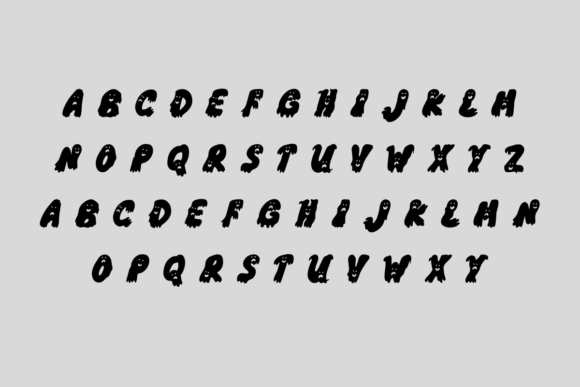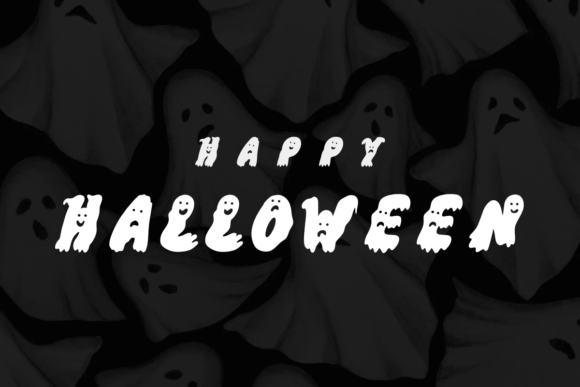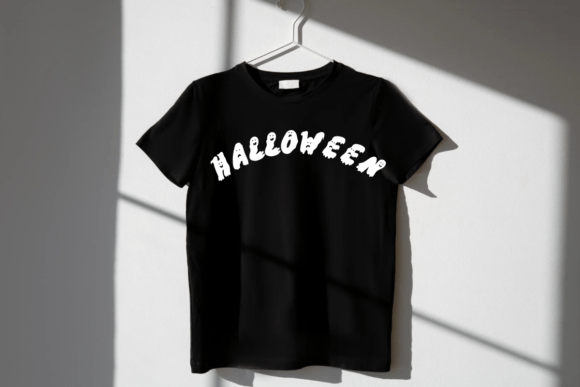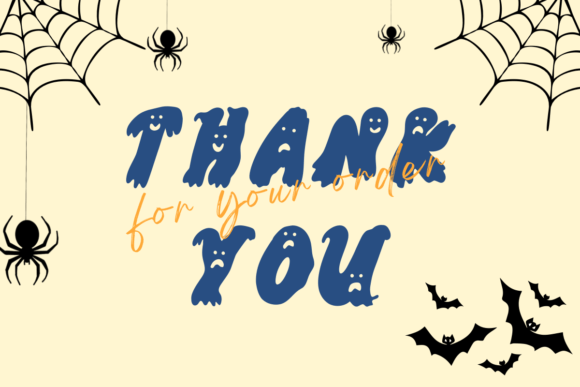
Introducing the Ghost Halloween Font: Add a Spooky Touch to Your Designs
Are you looking for a unique and playful way to add a spooky touch to your Halloween decorations or party invitations? Look no further than the “Ghost Halloween” font! This special font features letters that resemble adorable and eerie ghosts, perfect for getting into the Halloween spirit.
What is the Ghost Halloween Font?
The Ghost Halloween font is a one-of-a-kind typeface where each letter is designed to look like a spooky ghost. The font is perfect for designers, crafters, and anyone looking to add a playful and eerie touch to their Halloween-themed projects. Whether you’re creating party invitations, decorations, or social media graphics, this font is sure to make your designs stand out.
Features of the Ghost Halloween Font
- Unique Ghostly Design: Each letter in the Ghost Halloween font is carefully designed to resemble a spooky ghost, adding a playful and eerie touch to your designs.
- Playful and Eerie: The font strikes the perfect balance between playful and eerie, making it suitable for a wide range of Halloween-themed projects.
- High-Quality Design: The font is designed with high-quality graphics, ensuring that it looks great even at large sizes.
Uses for the Ghost Halloween Font
The Ghost Halloween font is versatile and can be used for a wide range of projects, including:
- Halloween Party Invitations: Create spooky and fun party invitations that will set the tone for your Halloween celebration.
- Halloween Decorations: Use the font to create signs, banners, and other decorations that will add a playful and eerie touch to your Halloween display.
- Social Media Graphics: Create spooky and engaging social media graphics that will help you connect with your audience during the Halloween season.
- Crafting Projects: Use the font to add a personal touch to your crafting projects, such as scrapbooking, card making, and other DIY crafts.
Tips for Using the Ghost Halloween Font
Here are some tips for getting the most out of the Ghost Halloween font:
- Experiment with Colors: Try pairing the font with different colors to create a unique and eye-catching design.
- Mix and Match: Combine the Ghost Halloween font with other fonts and graphics to create a truly one-of-a-kind design.
- Keep it Simple: Don’t be afraid to keep your design simple and let the font be the star of the show.
The Ghost Halloween font is a unique and playful way to add a spooky touch to your Halloween designs. With its adorable and eerie ghostly design, this font is perfect for designers, crafters, and anyone looking to create Halloween-themed projects. Whether you’re creating party invitations, decorations, or social media graphics, the Ghost Halloween font is sure to make your designs stand out.